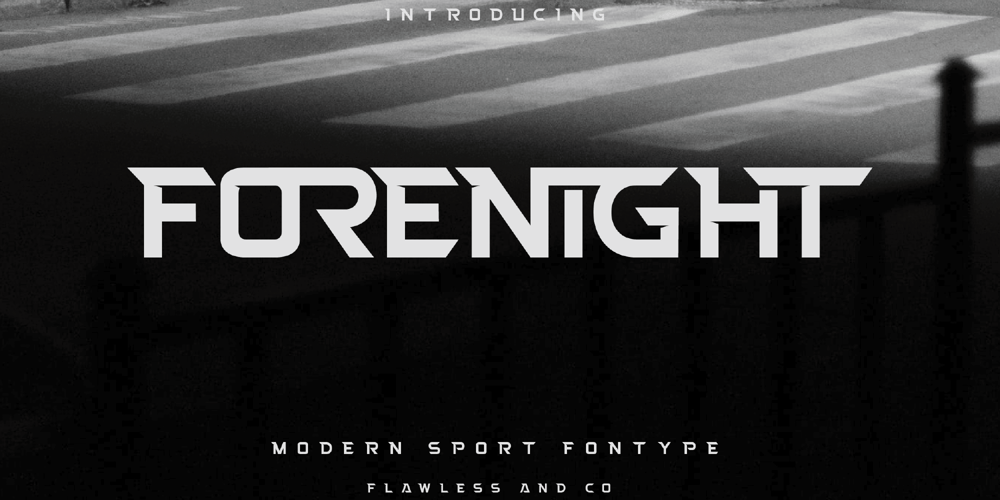
Forenight Font Family was designed by Achmad Yani and published by Flawlessandco. Forenight contains 1 styles and family package options. Introducing “Forenight” – a dynamic and modern sport font designed to capture the spirit of athleticism and energy. With its bold and sleek letterforms, Forenight brings a sense of power and movement to your sports-related designs. There’s some connected letters and some alternates that suitable for any graphic designs such as branding materials, t-shirt, print, business cards, logo, poster, t-shirt, photography, quotes .etcThis font support for some multilingual. Also contains uppercase A-Z and lowercase a-z, alternate character, numbers 0-9, and some punctuation.If you need help, just write me! Thanks so much for checking out my shop!